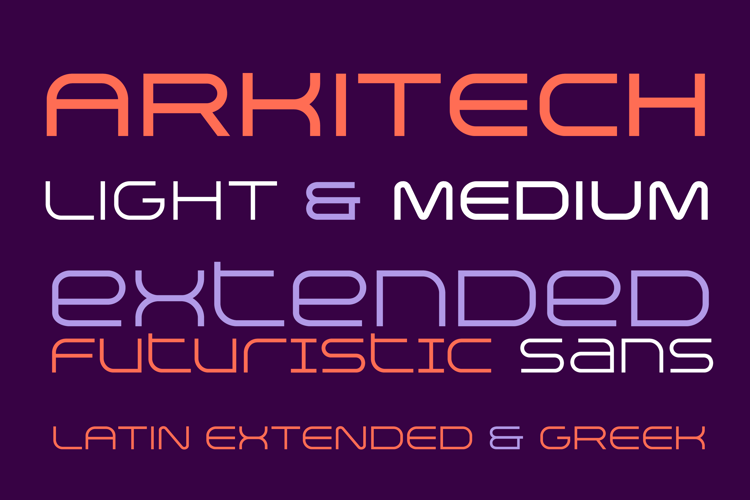
Arkitech Font
Futuristic extended sans with Latin Extended and Greek support, an update of the original Arkitech I released in 2009. This one is compatible with online platforms like Adobe Express and Canva.